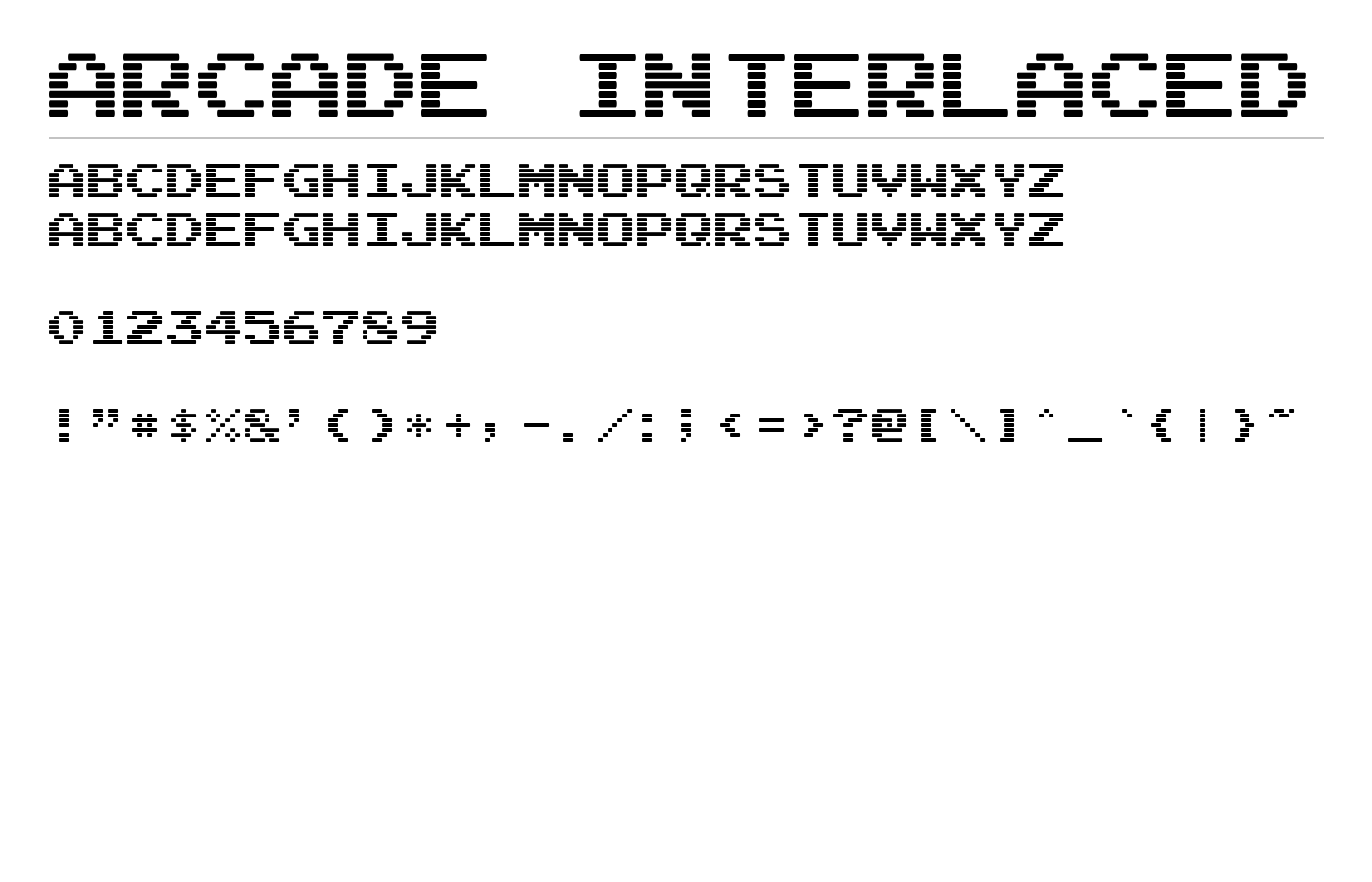
Arcade Normal is a pixelated, monospaced sans serif font that captures the retro essence of classic arcade games with its blocky, modular letterforms composed of horizontal lines. Its consistent weight and compact, pixel-art style make it perfect for evoking vintage digital aesthetics in video game design, tech-themed branding, and nostalgic posters. This font works best in headlines and logos where its unique, playful vibe can stand out clearly and add a touch of old-school charm.
Arcade Normal Font